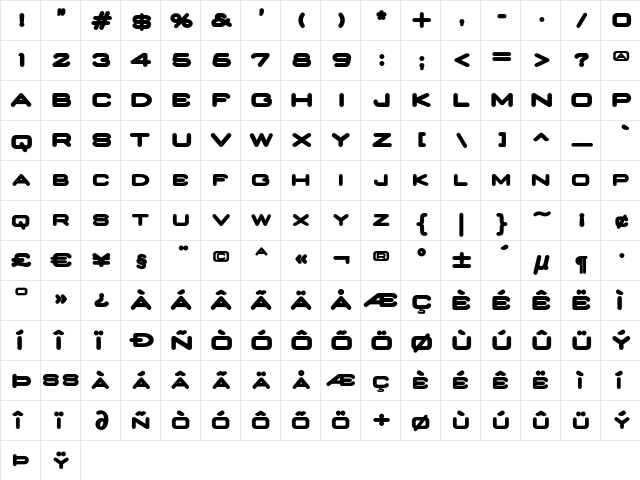
Nedian ExtraBold
Design Context for Nedian Typeface
Nedian takes a measured approach to typography — its balanced proportions and neutral character make it a reliable workhorse for both digital and print work. The heavy weight commands attention and anchors typographic hierarchies.